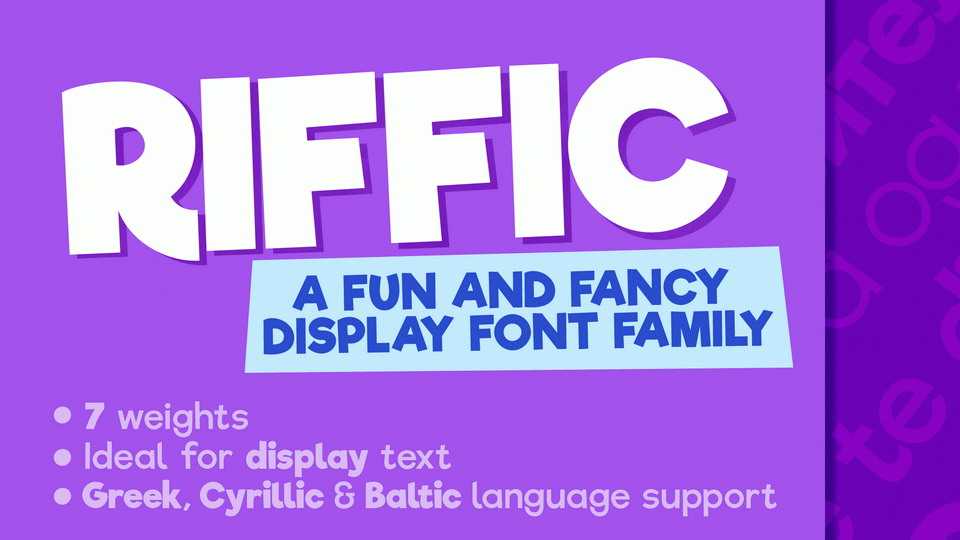
Download Riffic font, a funny and friendly bold sans serif display typeface. Works best big and bold as a display face but can also be used for general body text.
Designer: InkyType